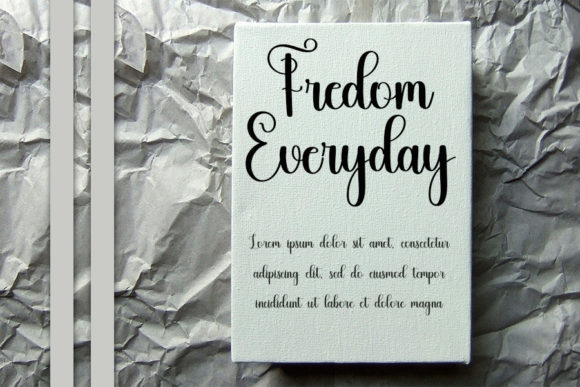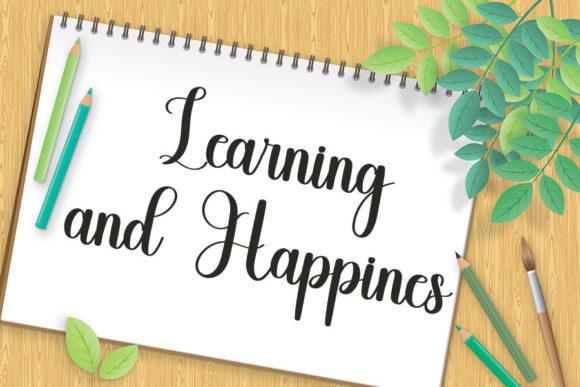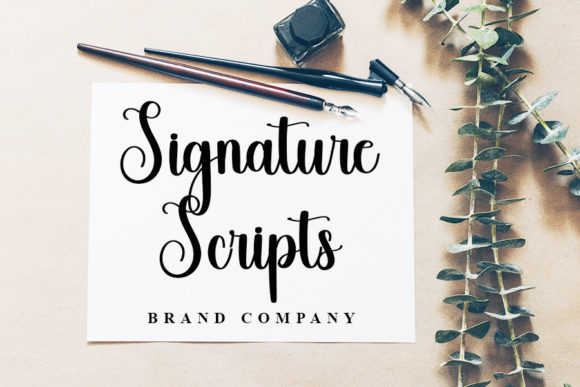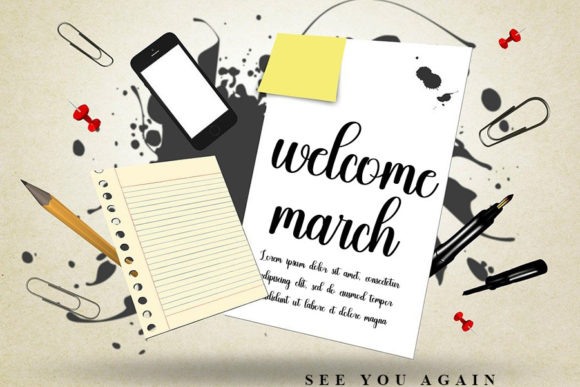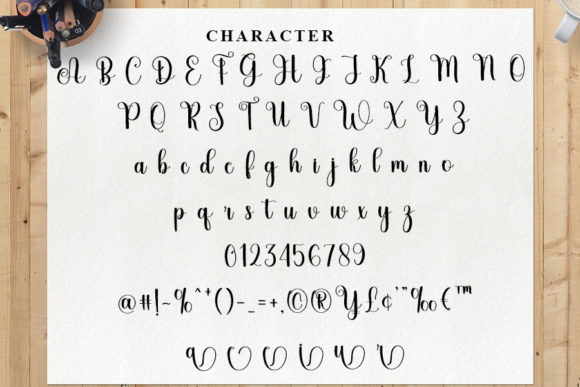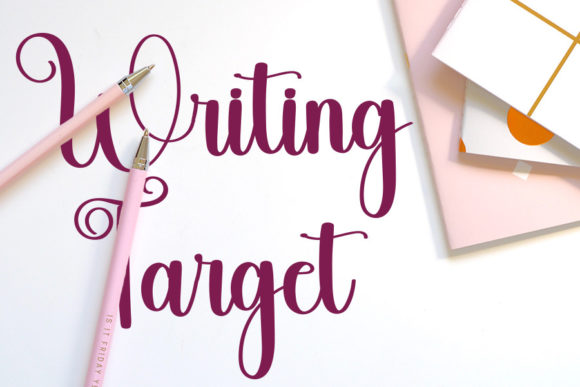
Introduction to Danylla Font
Danylla is a stylish handwritten font with a contemporary atmosphere and impeccable form, inspired by a timeless classic calligraphy.
Key Features of Danylla Font
Why Choose Danylla Font?
Danylla Font offers exceptional quality and versatility, making it a valuable addition to your design toolkit. Whether you’re creating for personal projects or commercial use, Danylla Font delivers professional results.